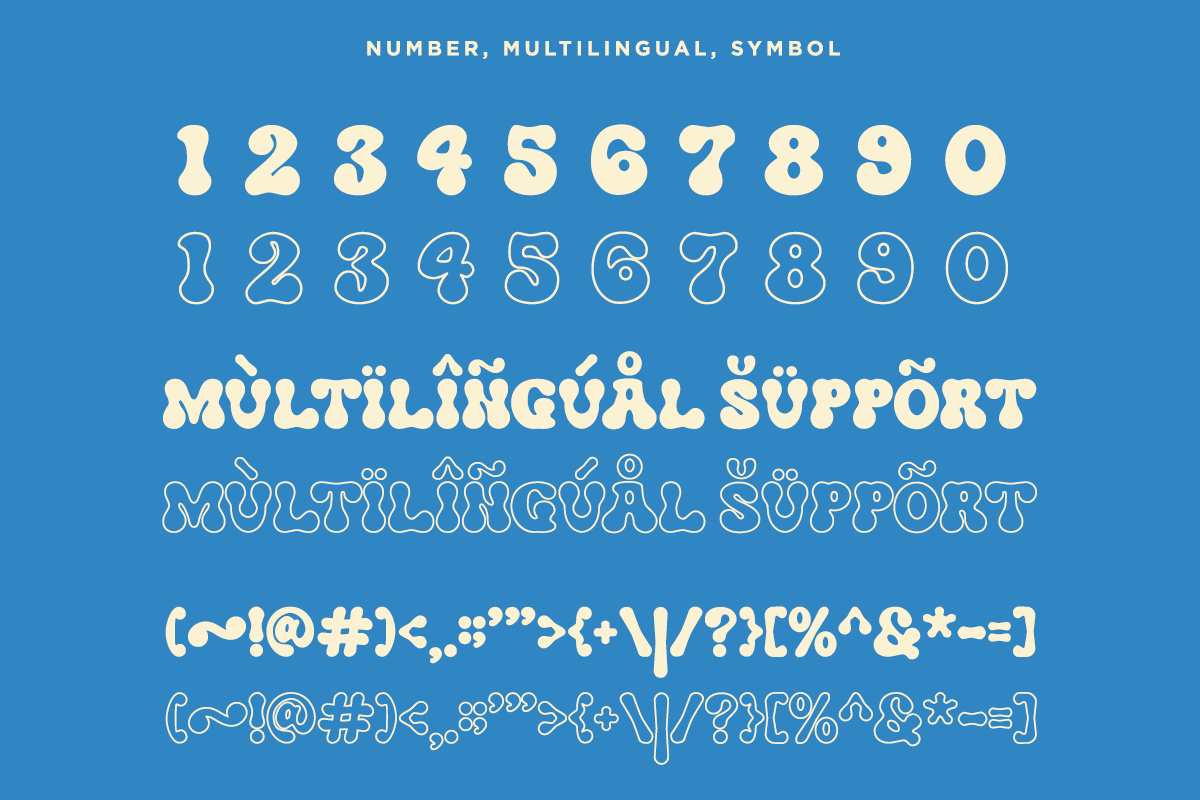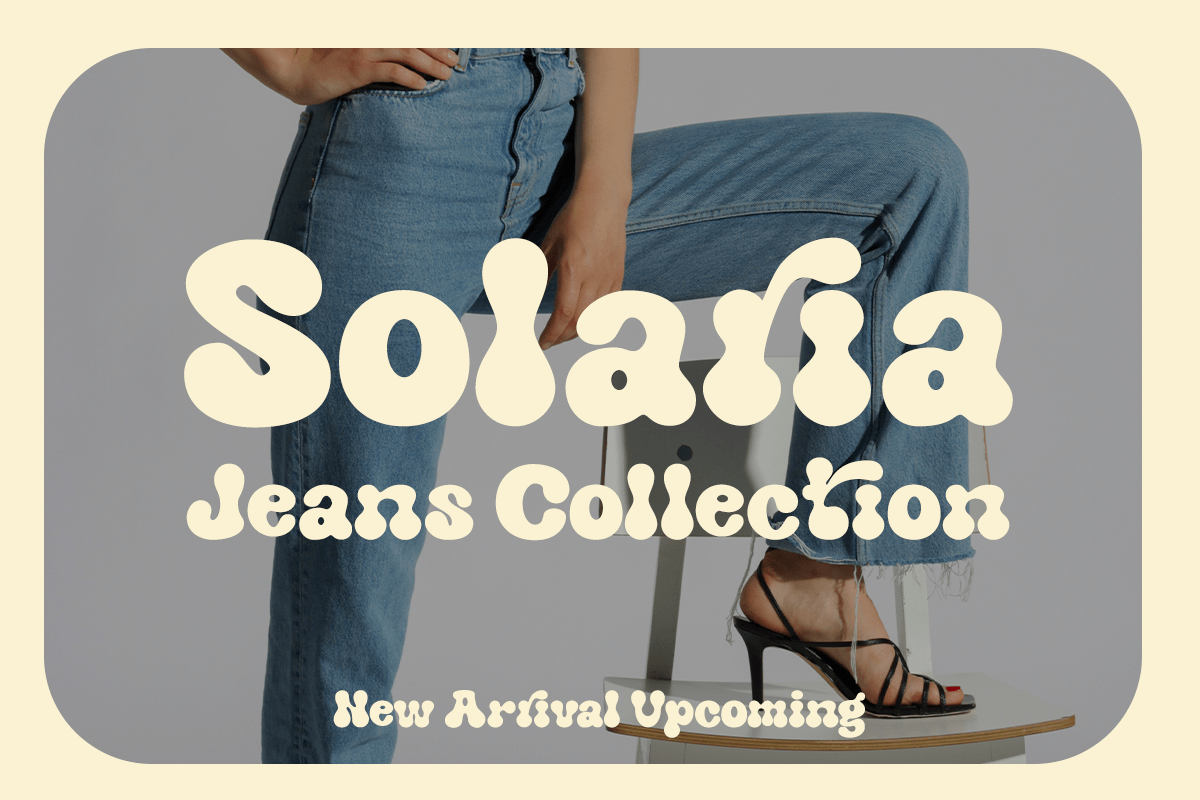
Kringe – Retro Bubble Display Font
Kringe is a playful retro bubble display font inspired by the vibrant aesthetics of the ’70s and nostalgic pop culture. Featuring soft rounded shapes, bold letterforms, and cheerful personality, Kringe brings warmth, fun, and a carefree vintage vibe to every design. Its chunky appearance instantly captures attention while remaining highly legible across both print and digital media.
Perfect for branding, fashion collections, summer campaigns, children’s products, beach themes, packaging, social media, posters, apparel, stickers, merchandise, magazines, and lifestyle projects, Kringe includes uppercase, lowercase, outline characters, numerals, punctuation, multilingual support, and OpenType features. The filled and outline styles make it easy to create layered typography with playful visual impact.
Whether you’re designing colorful packaging, beach-inspired branding, retro merchandise, youth fashion promotions, or eye-catching editorial headlines, Kringe delivers a joyful and expressive look that stands out effortlessly. Its nostalgic curves and friendly character make it the ideal display font for projects that celebrate creativity, happiness, and vintage charm.
– Stylistic alternates
– Uppercase, Lowercase & Ligatures